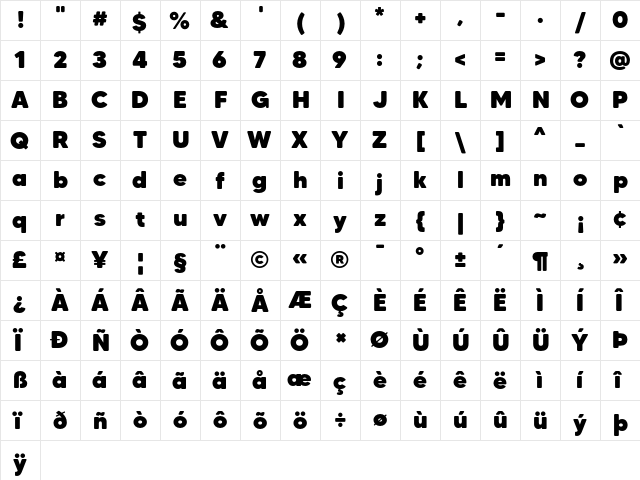
MADE Tommy Soft Black
| Foundry | MadeType |
| Designer | MadeType |
Design Context for MADE Tommy Soft Typeface
MADE Tommy Soft is a composed and adaptable typeface that performs quietly and consistently across a wide range of design contexts.